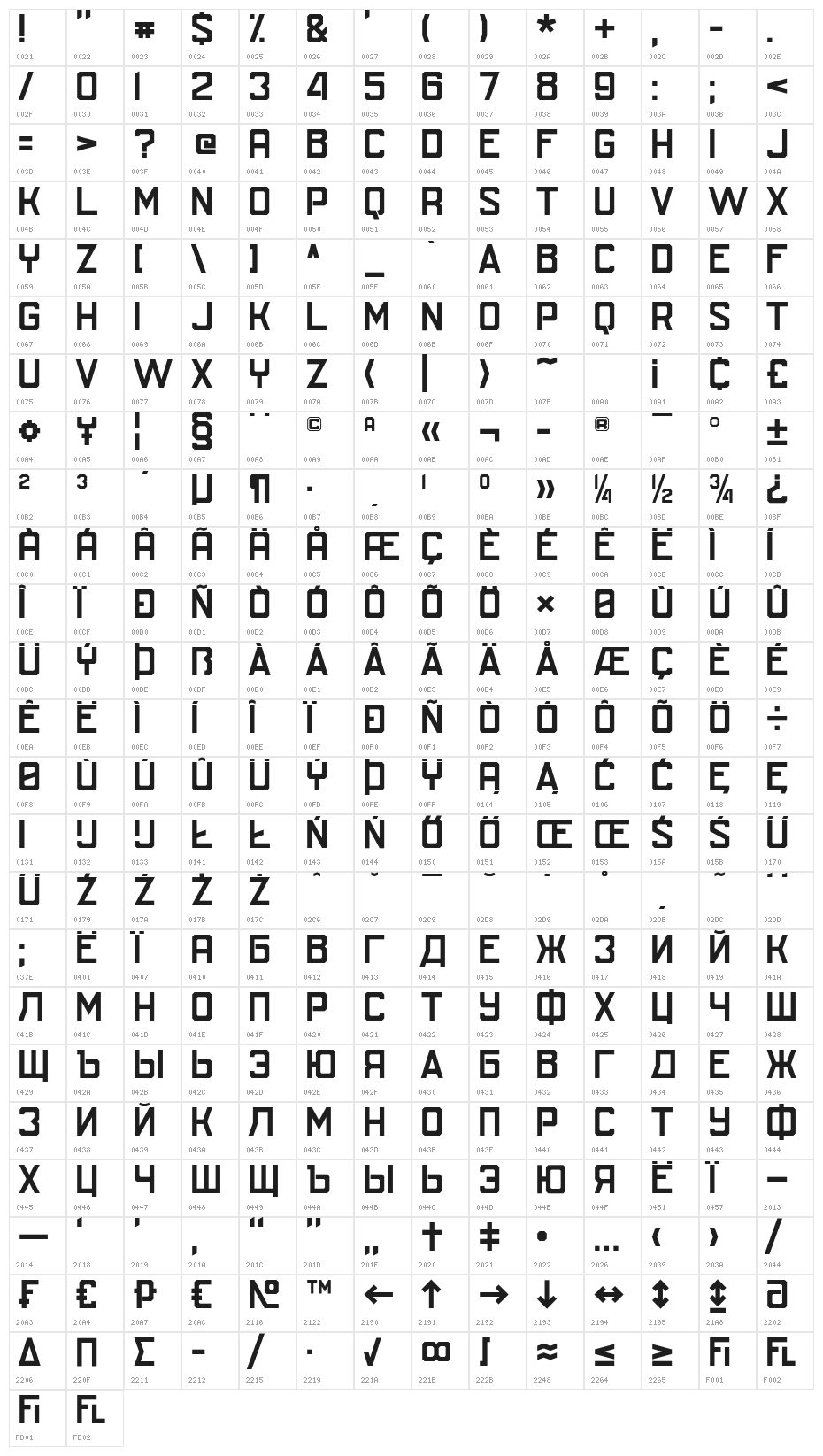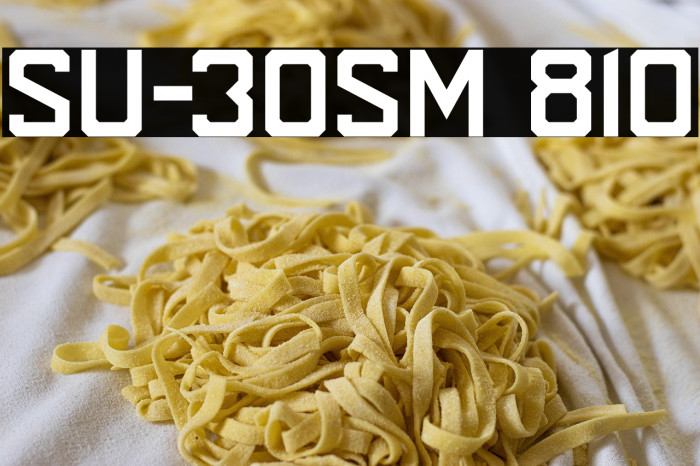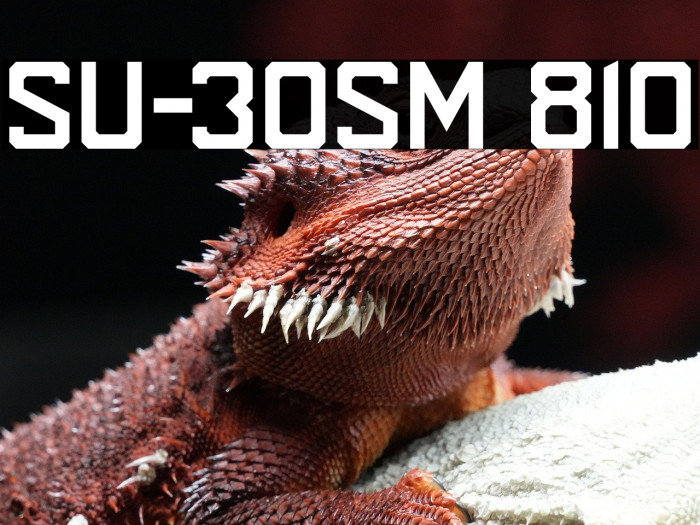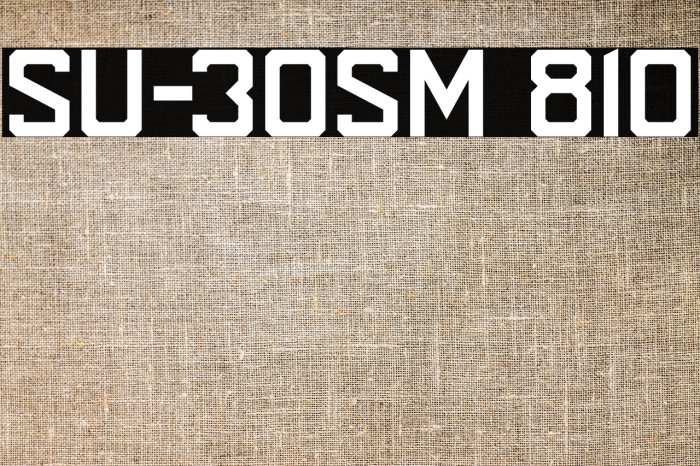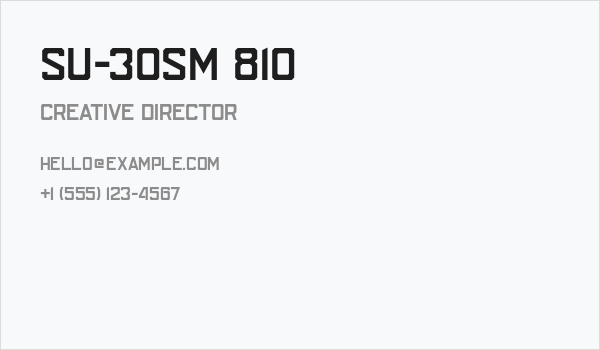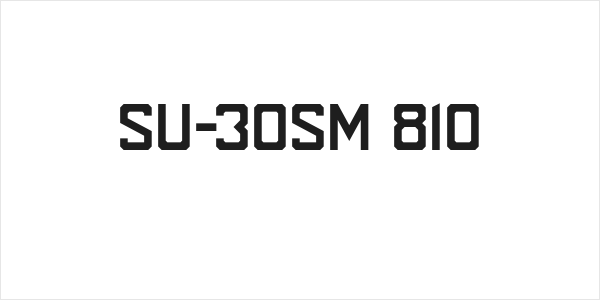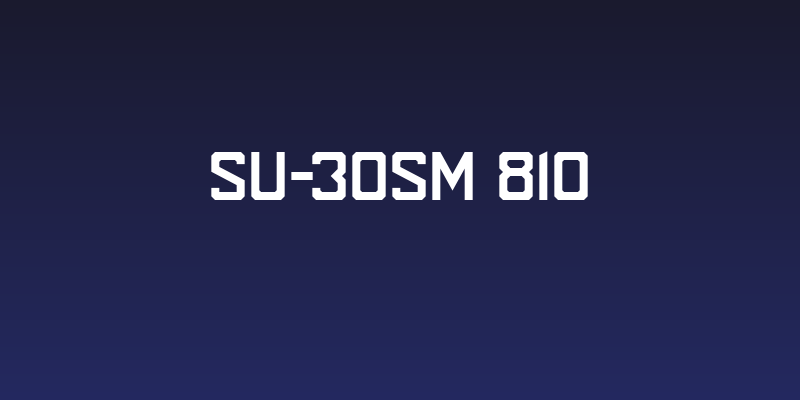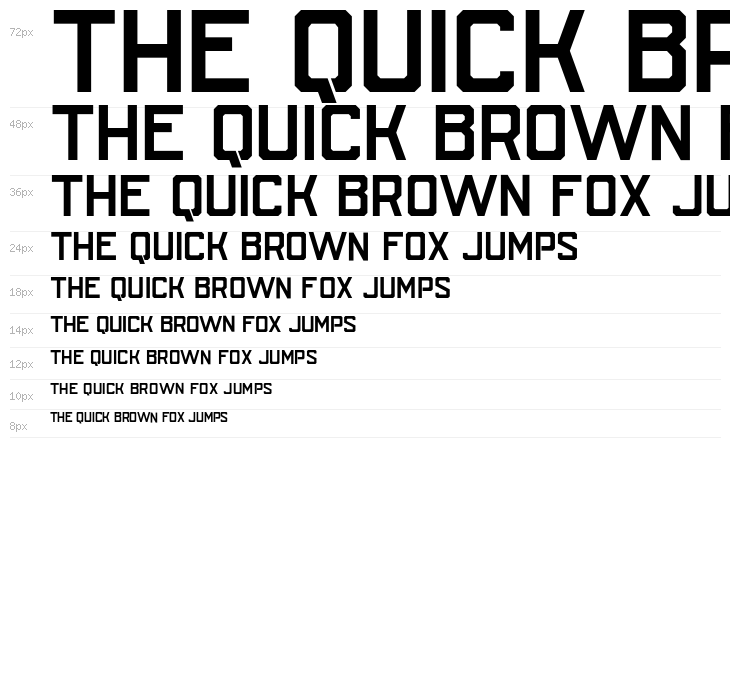
SU-30SM 810 Font
SU-30SM 810 Description
This font exhibits a bold, geometric style with a strong, industrial feel. The characters are constructed with thick, uniform strokes, giving them a robust and sturdy appearance. The angular design and sharp edges contribute to a modern and technical aesthetic, reminiscent of military or aviation themes. The uppercase letters are particularly striking, with a consistent height and width that enhance readability. The numerals and special characters maintain the same boldness and geometric precision, ensuring a cohesive look across all elements.
Use CaseHeadlines, Logos, Signage
Proposed ProjectsIdeal for projects related to technology, military themes, or branding that requires a strong, impactful presence. Suitable for logos, posters, and signage.